Schear Grotesk and Reprise: New fonts by Stockholm designer Robert Holmkvist
Schear Grotesk
Schear Grotesk is a condensed typeface family in nine weights, originally drawn for Creative Review, and Reprise is an experimental display font that comes in three styles. Both can be purchased at sellfy.com.
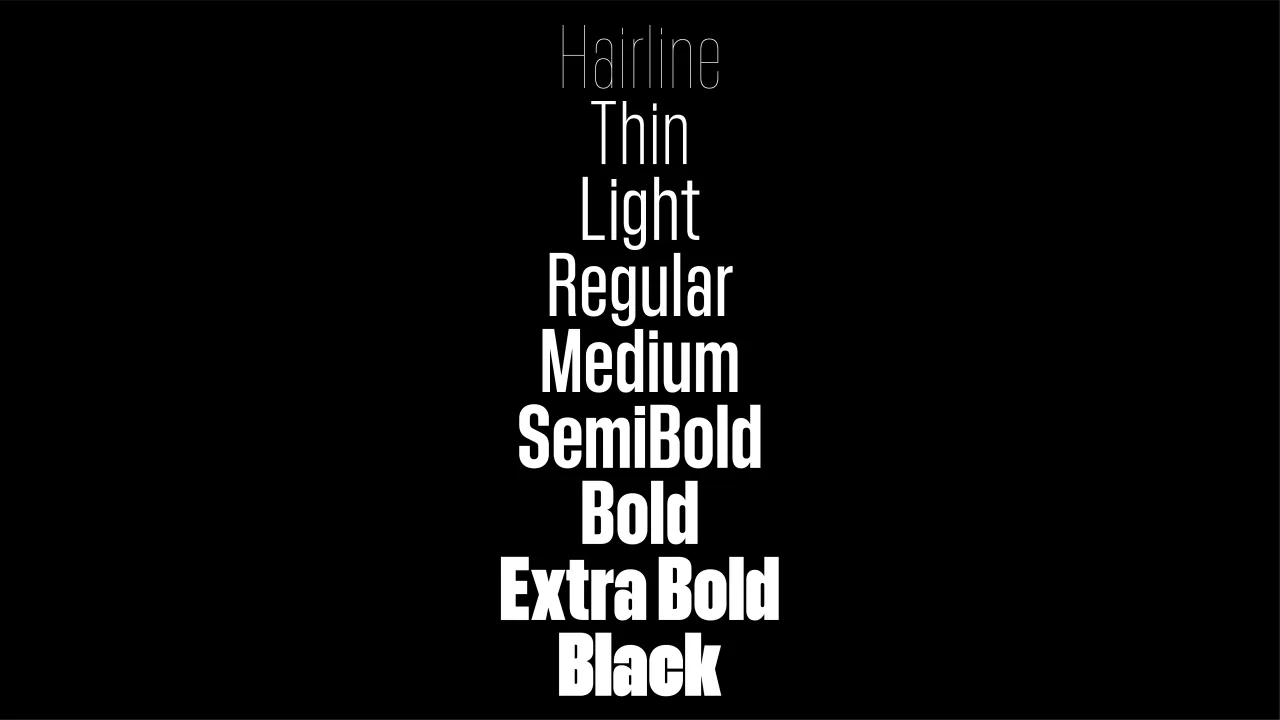
Schear Grotesk
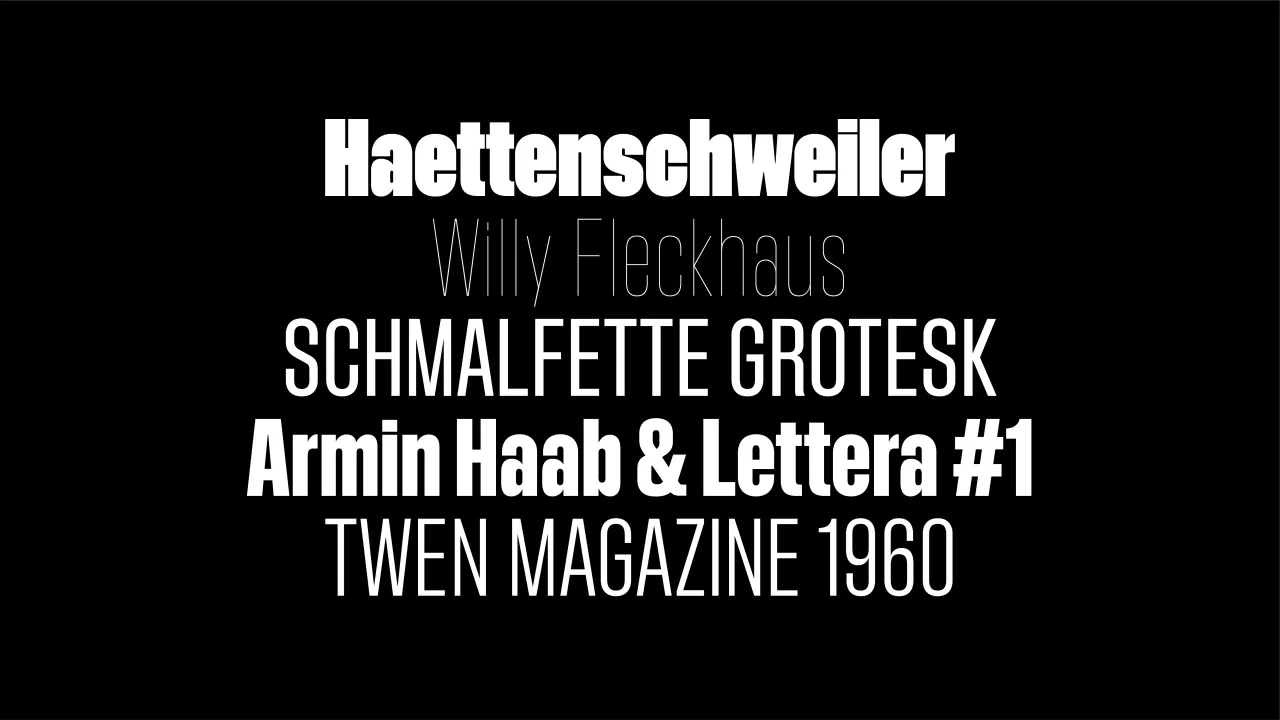
Schear Grotesk
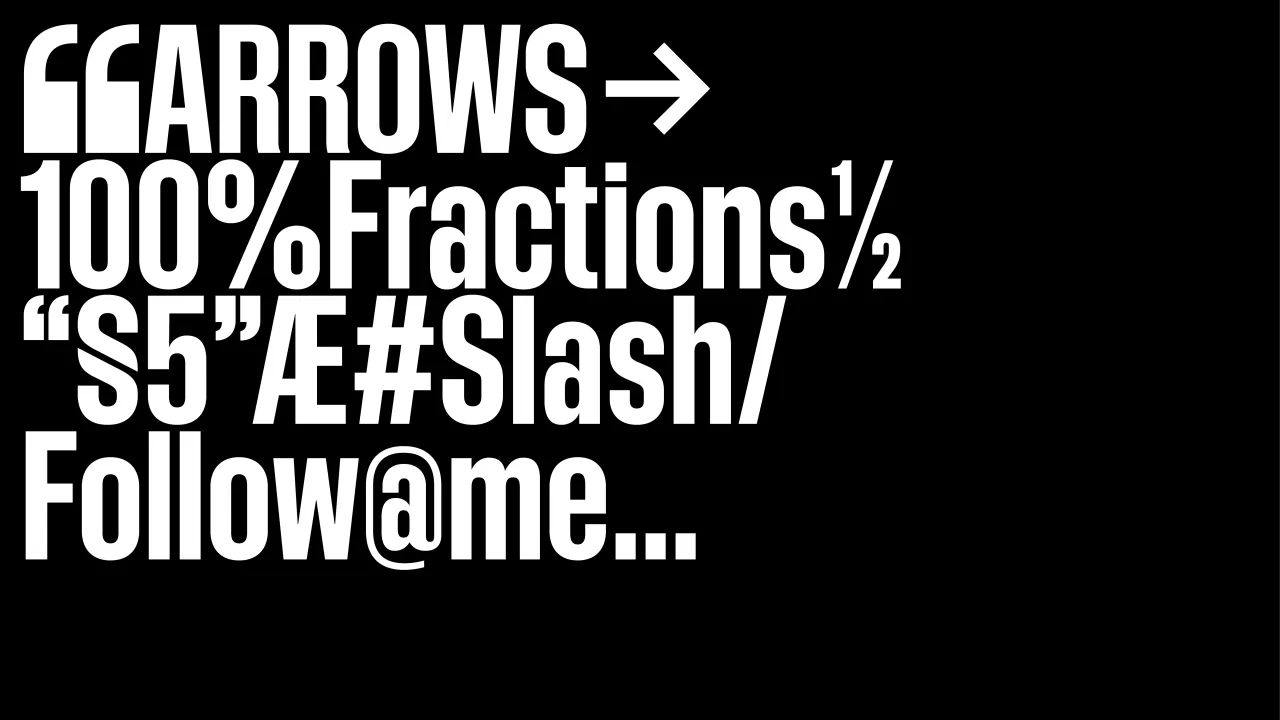
Schear Grotesk
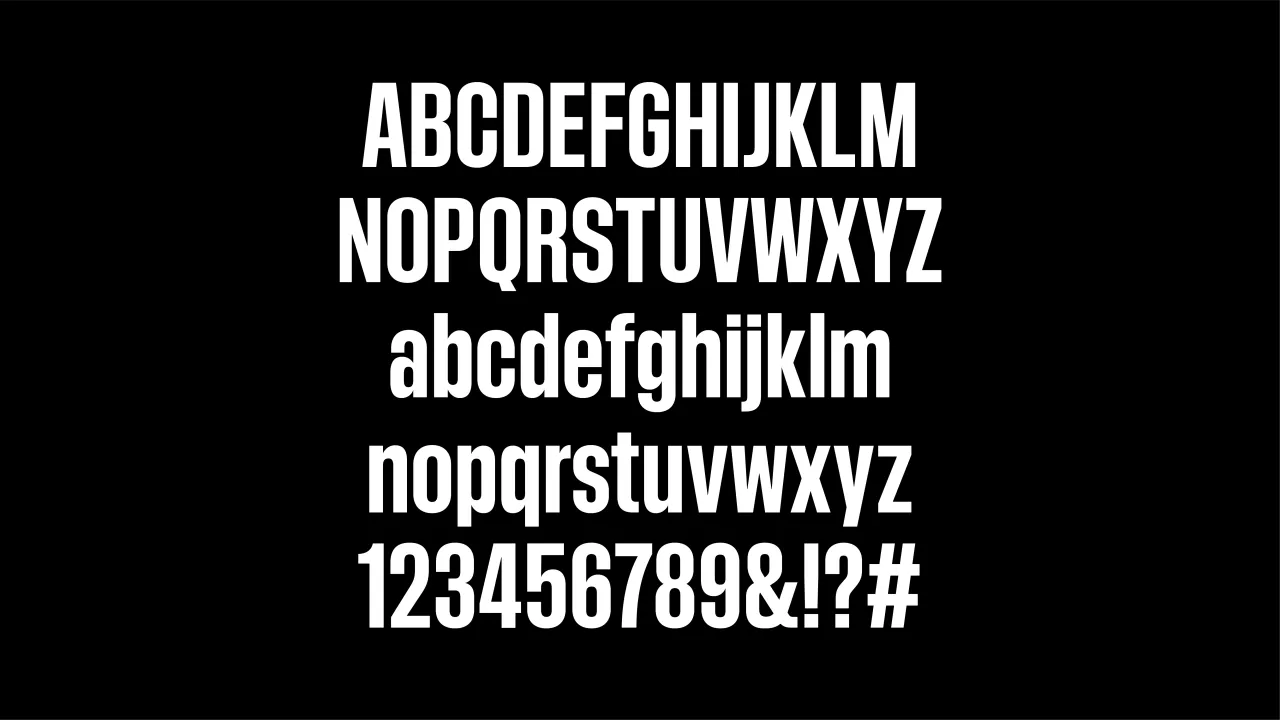
Schear Grotesk
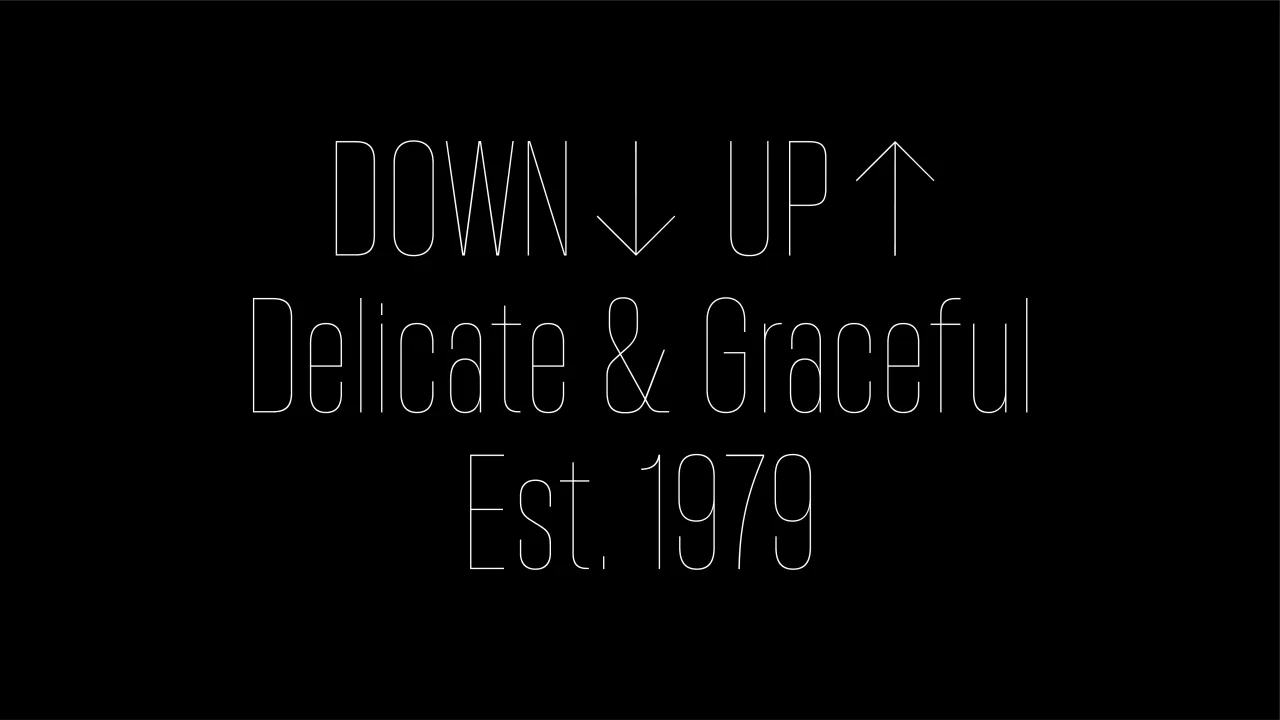
Schear Grotesk
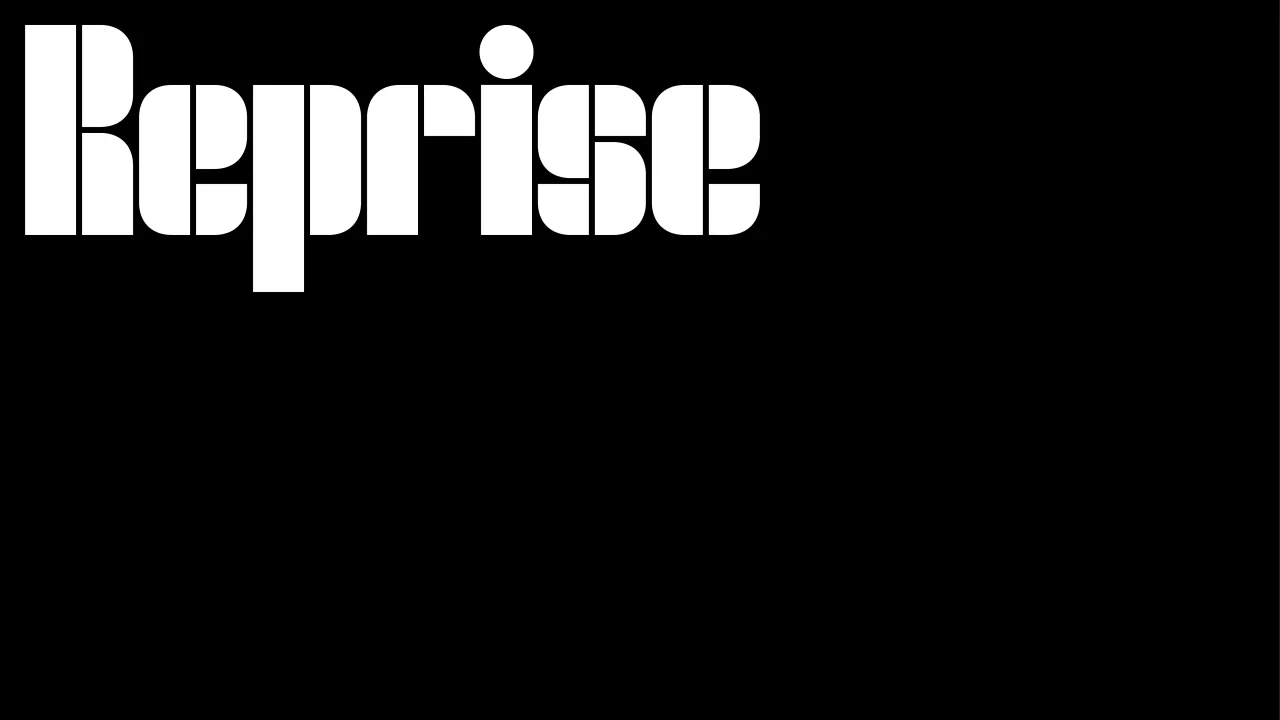
Reprise
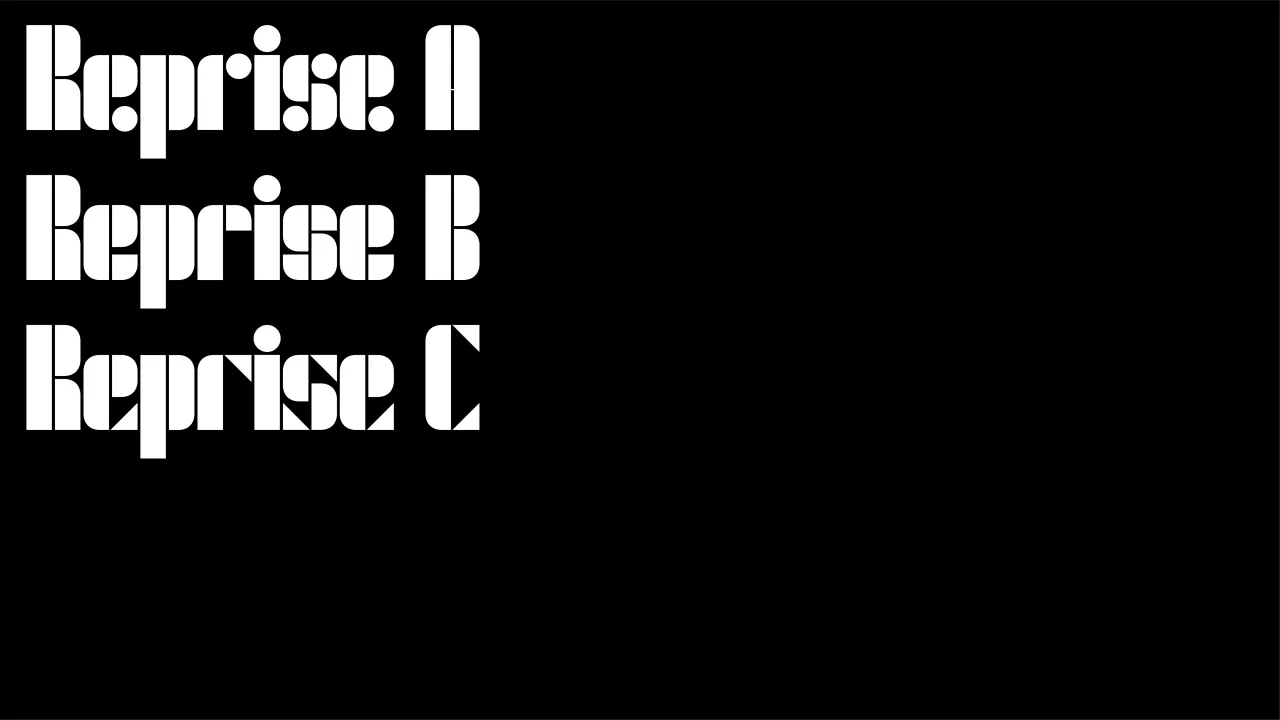
Reprise
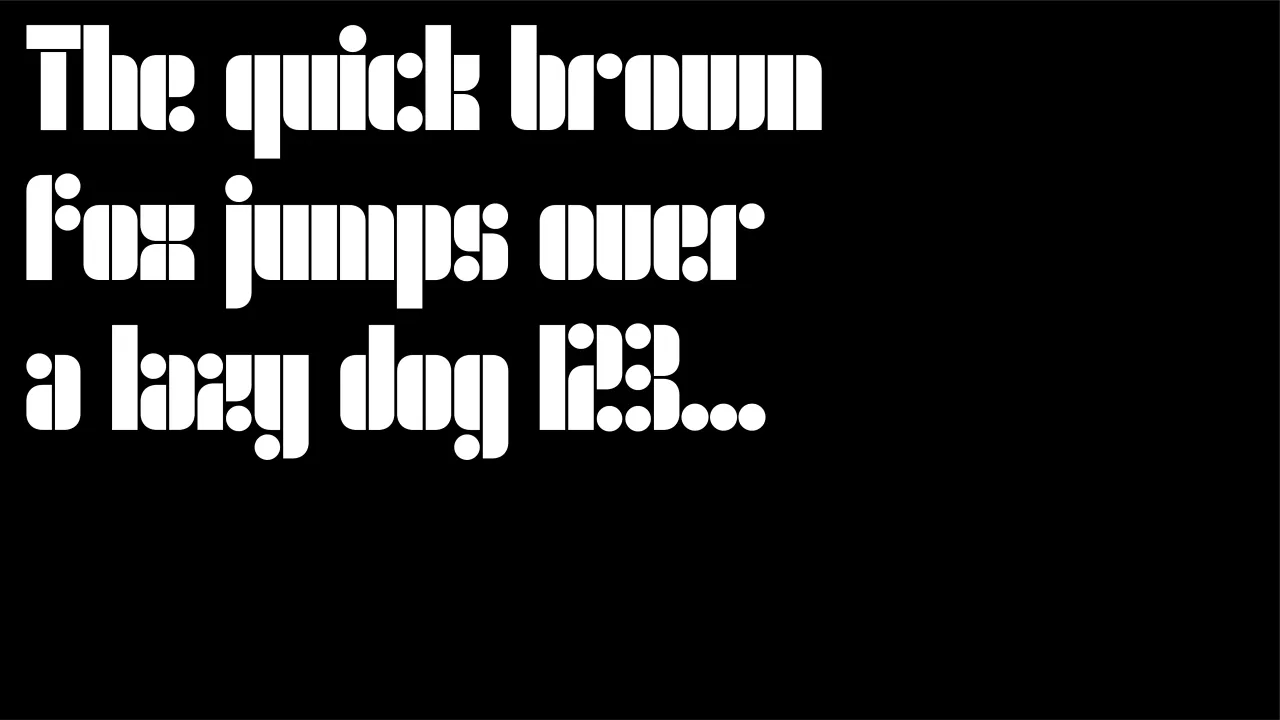
Reprise
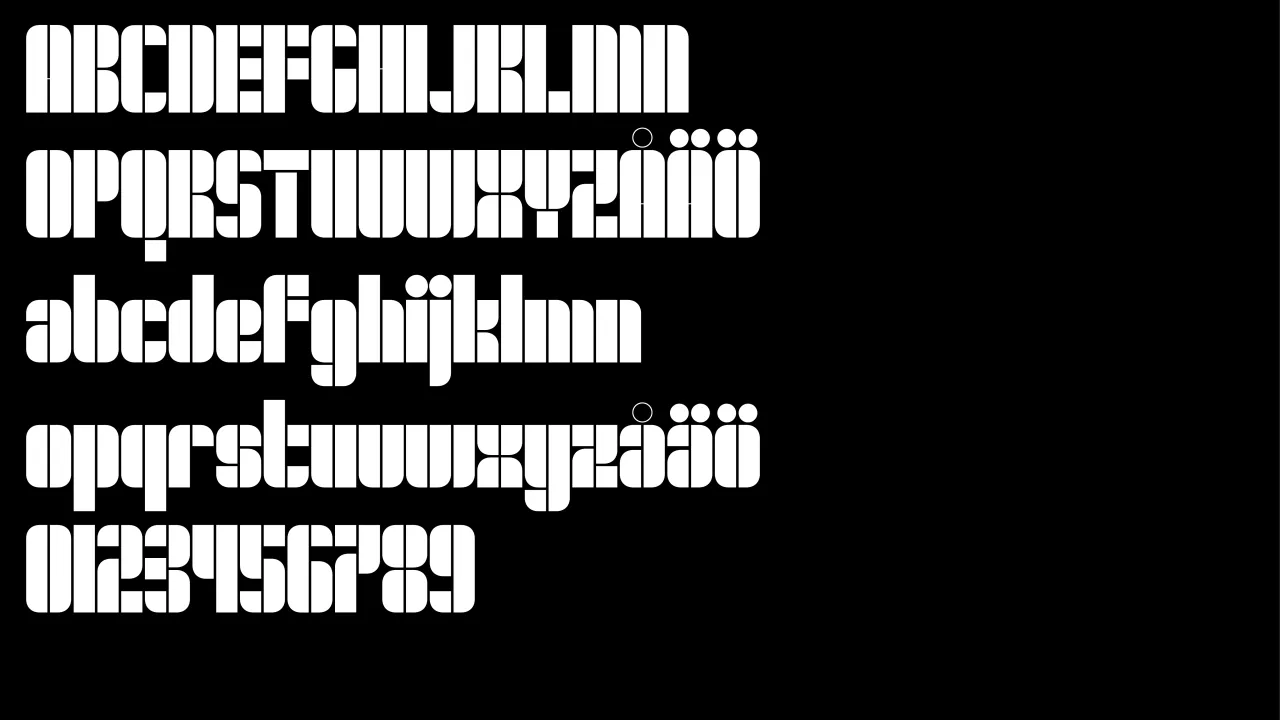
Reprise
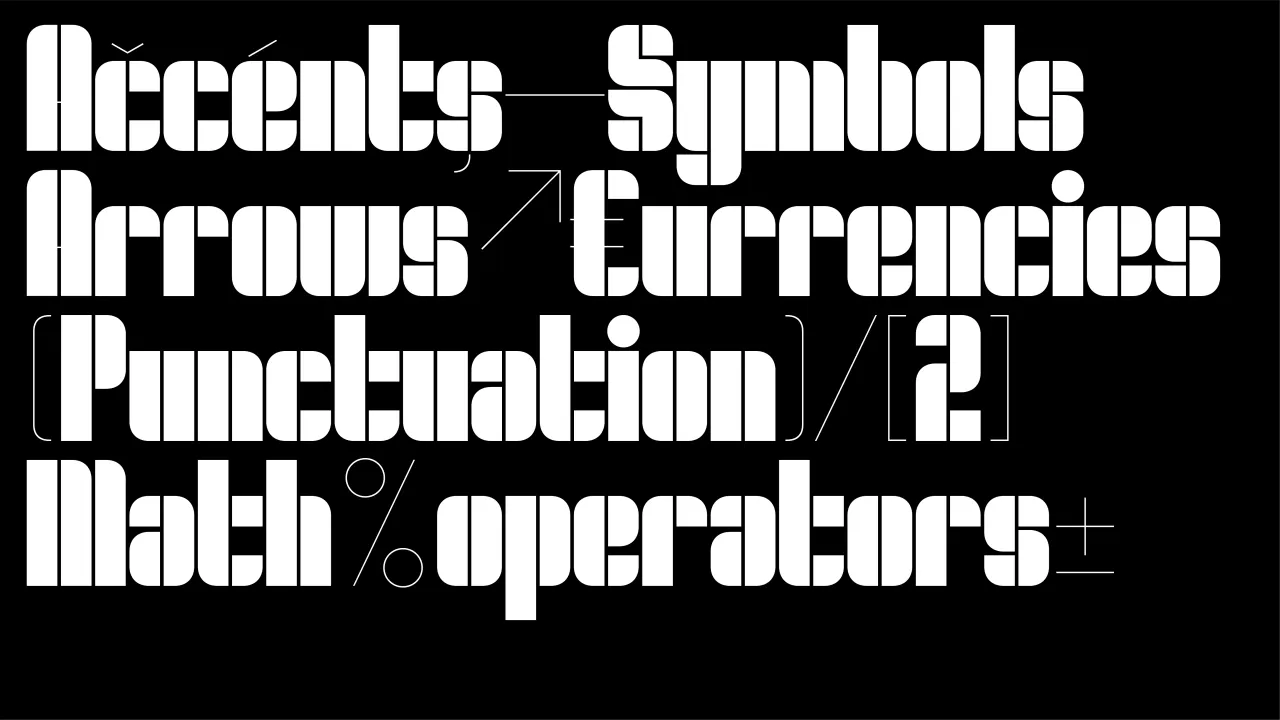
Reprise